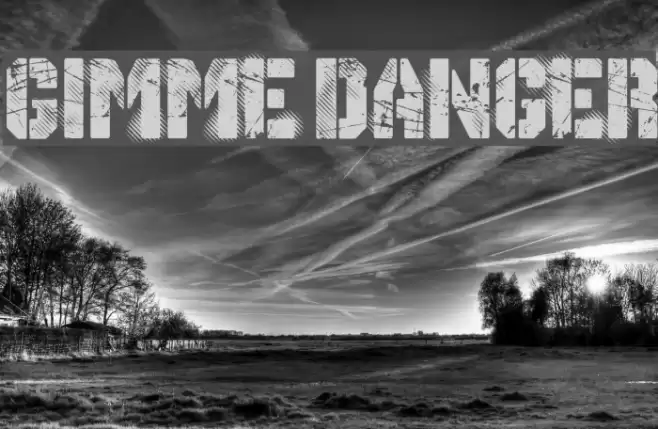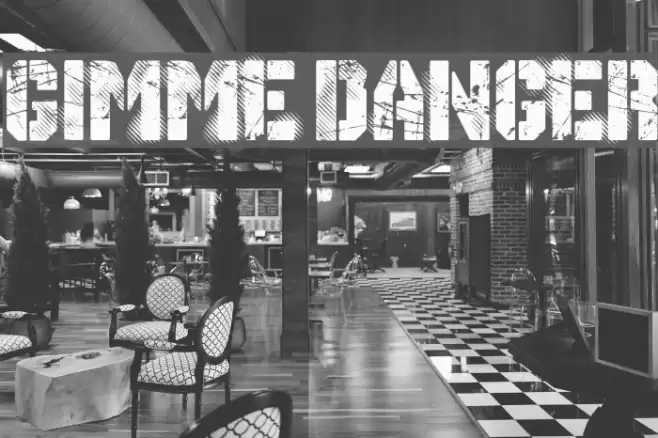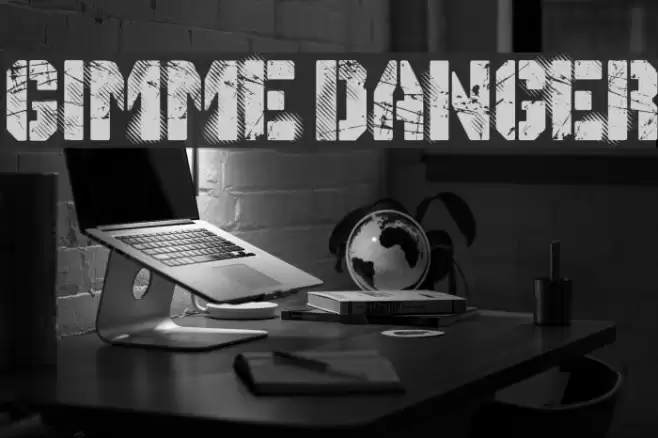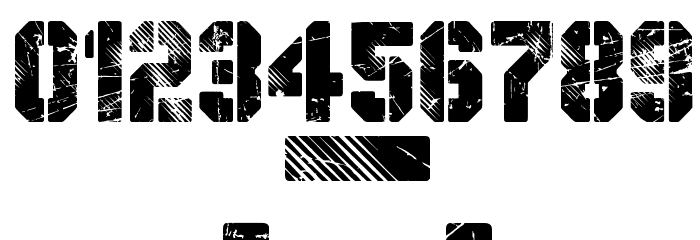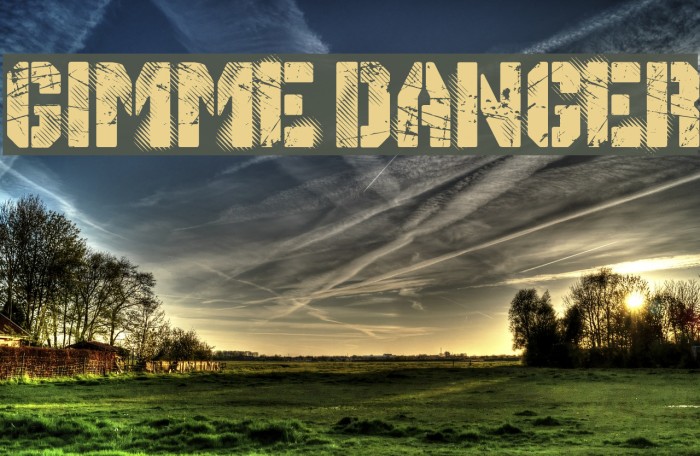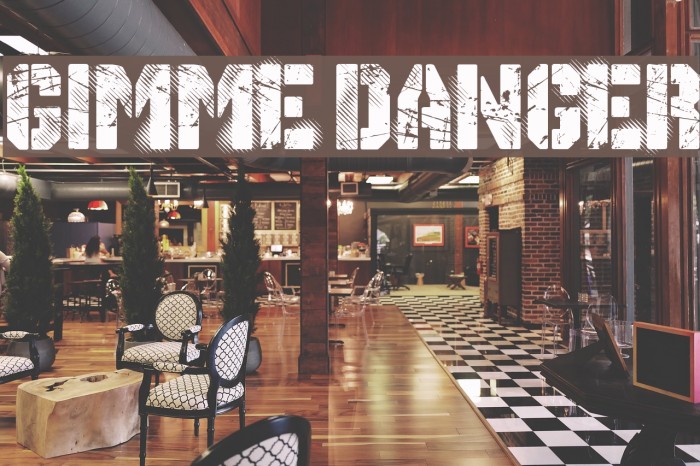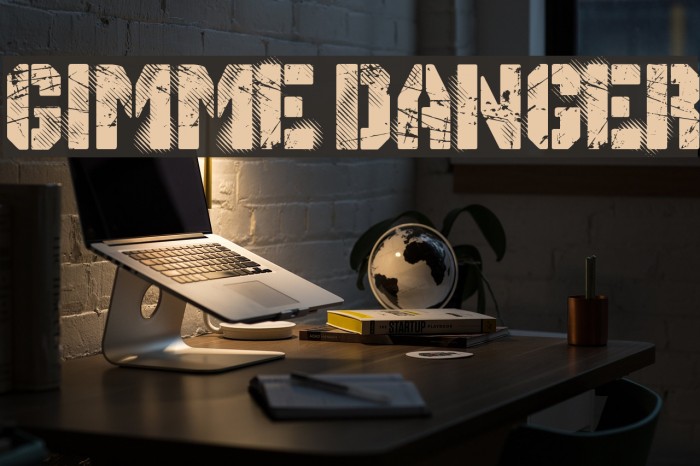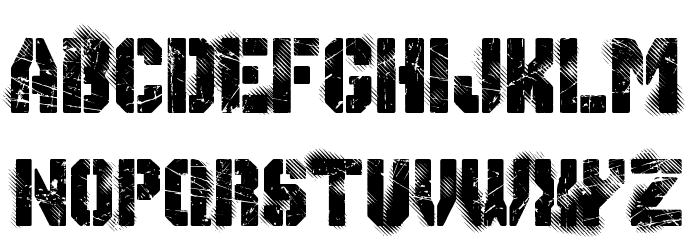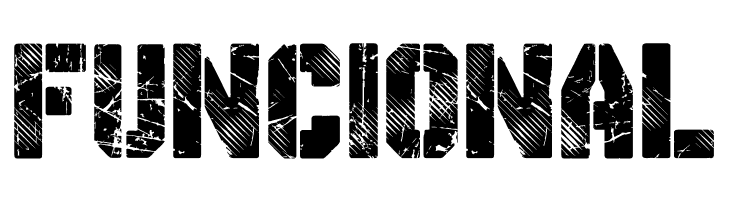
Gimme Danger Font
Gimme Danger Description
This font features a bold, distressed style with a rugged, textured appearance. The characters are heavily stylized with a scratched, worn-out look, giving them a rebellious and edgy feel. The uppercase and lowercase letters, along with numbers and special characters, maintain a consistent distressed pattern, making it ideal for projects that require a gritty, industrial aesthetic. The font's unique design elements create a sense of movement and chaos, perfect for capturing attention in dynamic and bold designs.
A bold, distressed font with a rugged, textured appearance from Uncategorized fonts.
- Proposed Projects: Ideal for music album covers, posters, urban-themed designs, and branding that requires a gritty, rebellious look.
- Overall Style: Modern, Edgy